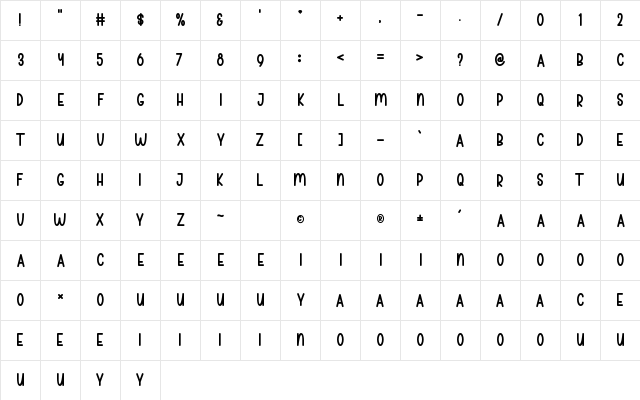
Complete Summer Party Duo Regular glyph index. Displaying only characters natively supported by Summer Party Duo Regular font.
Summer Party Duo is a composed and adaptable typeface that performs quietly and consistently across a wide range of design contexts.